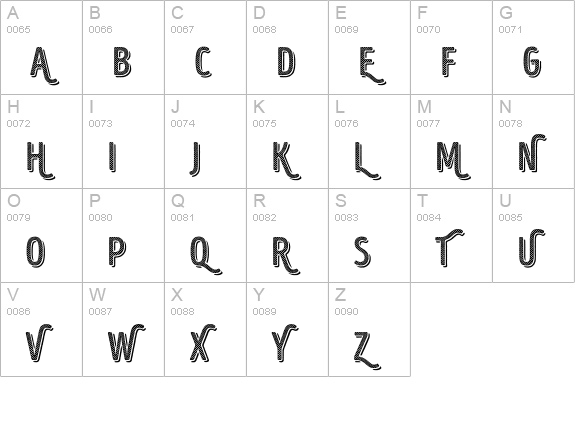
Intro Head B UC H1 Base Shade Font Details
The Intro Head B UC H1 Base Shade font is a stylish and modern typeface that exudes sophistication and elegance. Its sleek design and clean lines make it perfect for a wide range of design projects, from branding to editorial design. This versatile font is ideal for creating eye-catching headlines and titles that will captivate your audience. What makes the Intro Head B UC H1 Base Shade font even more appealing is that it is available for free download at FontsMarket.com. This means you can easily access this stunning typeface and use it in your projects without any cost. With its bold and impactful appearance, this font is sure to make a statement and elevate the overall look of your designs. Whether you're working on a website, poster, flyer, or any other creative project, the Intro Head B UC H1 Base Shade font will help you achieve a professional and polished finish. Download it for free today and add a touch of sophistication to your designs!